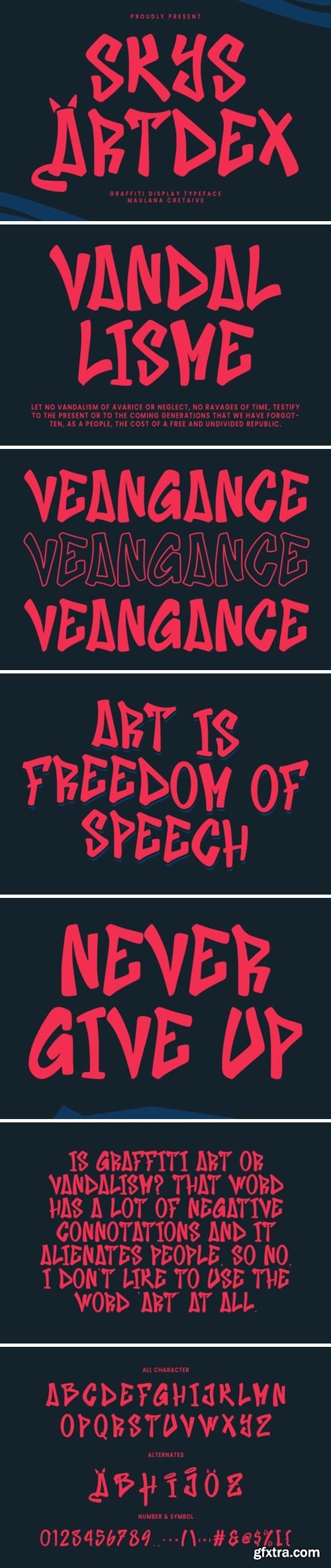
Meet “Skys Artdex,” a vibrant graffiti display font that brings the energy of the streets to your design. With bold strokes and expressive flair, Skys Artdex captures the essence of urban artistry. Whether you’re working on edgy posters, street-style branding, or contemporary art projects, this font adds an authentic touch of graffiti culture. Unleash the creative spirit of the streets with Skys Artdex for a typography experience that’s dynamic and full of urban character.